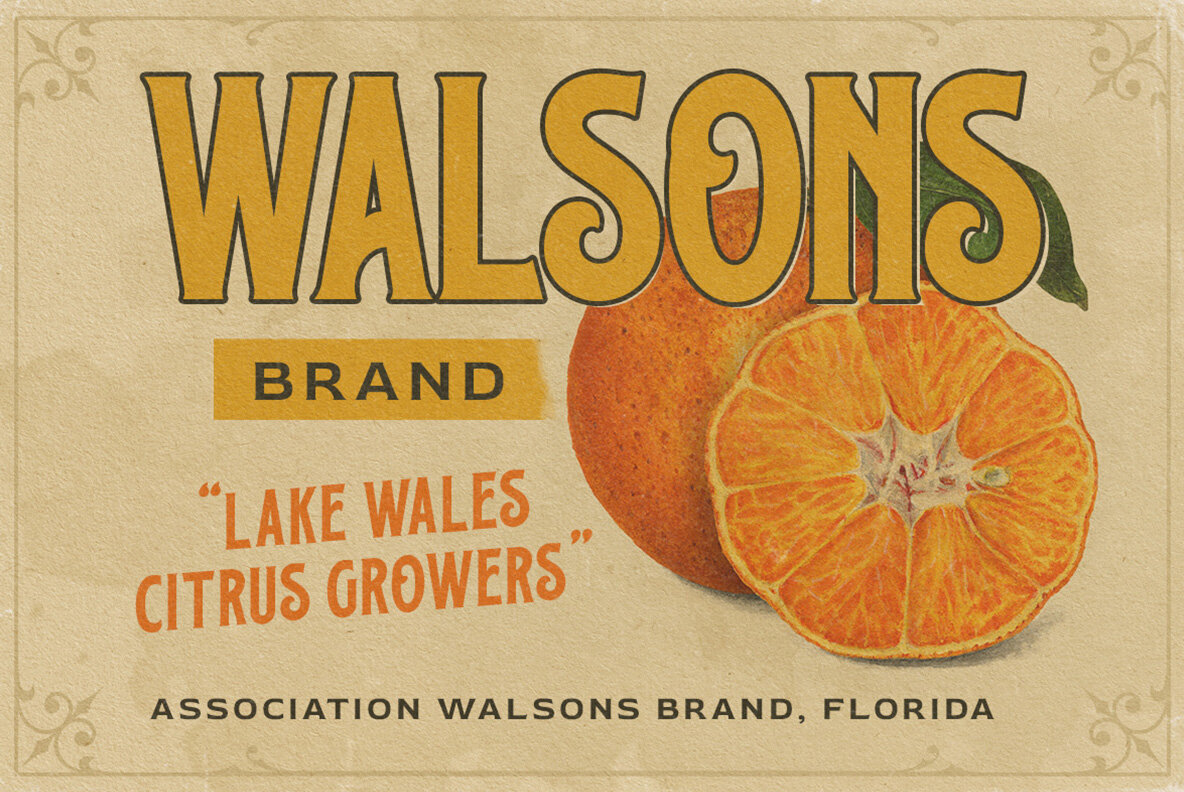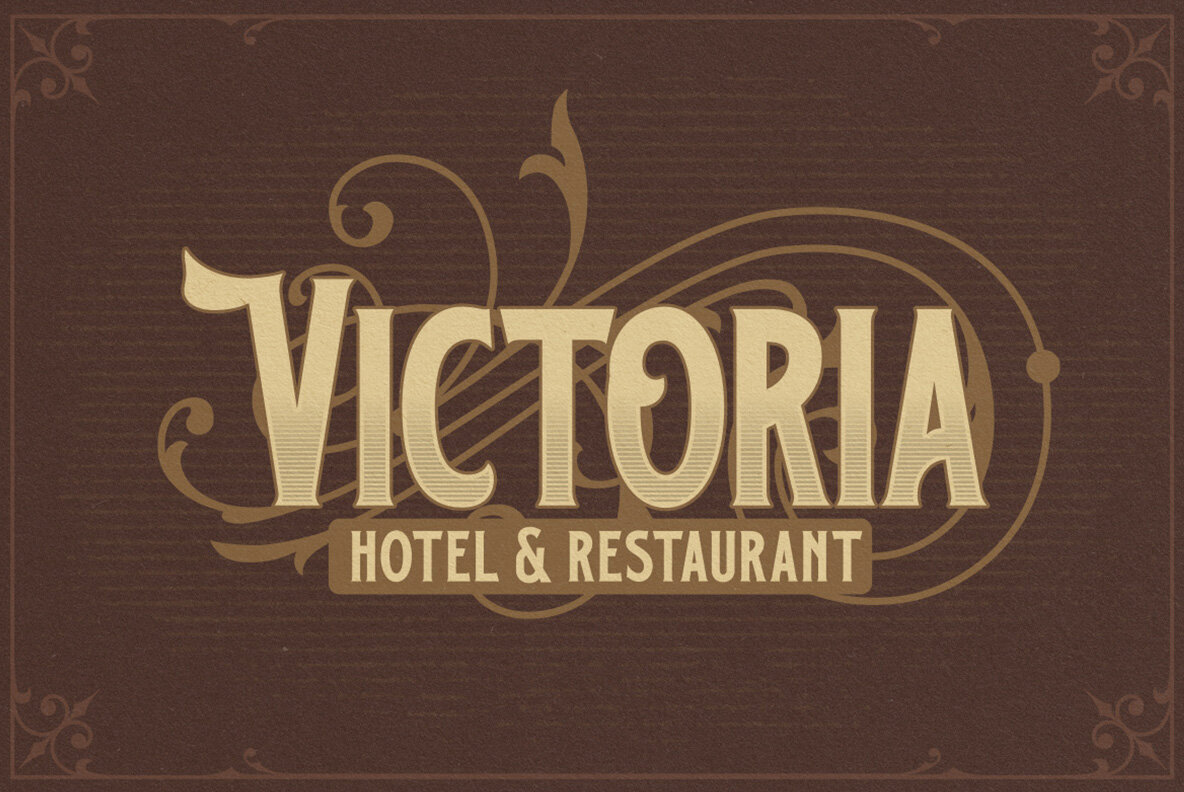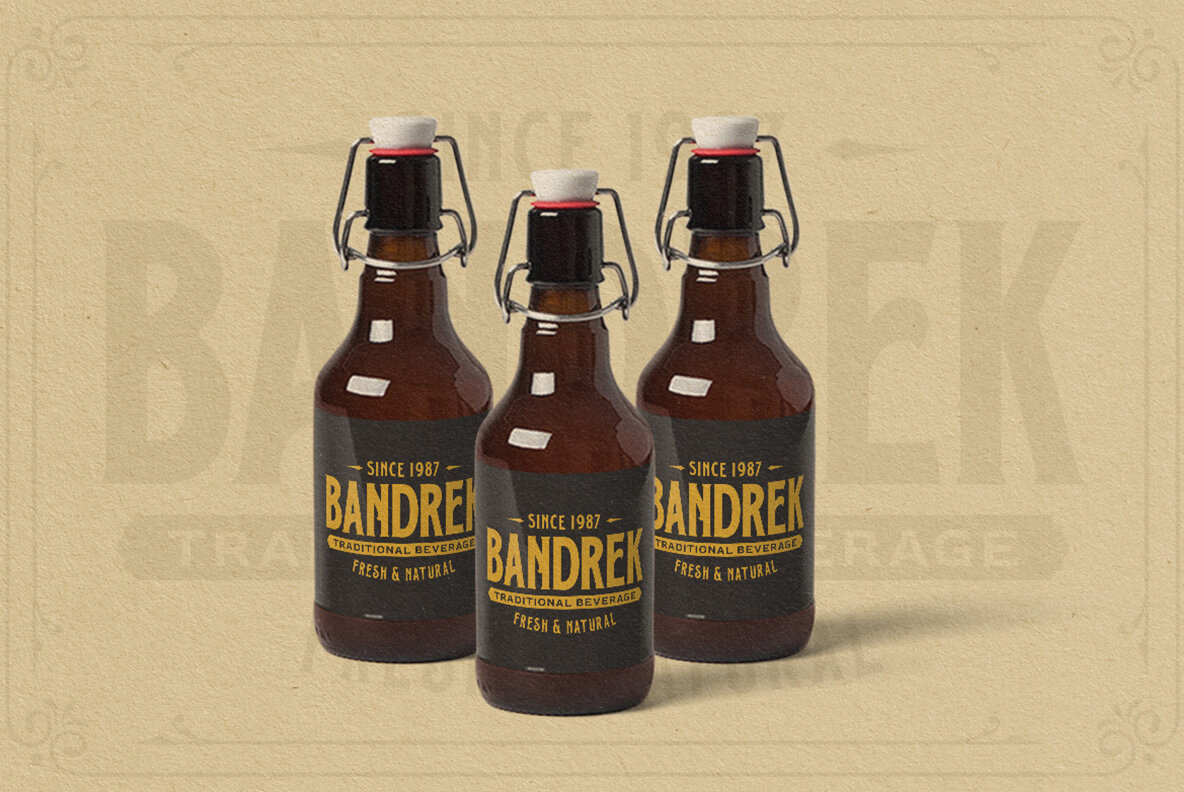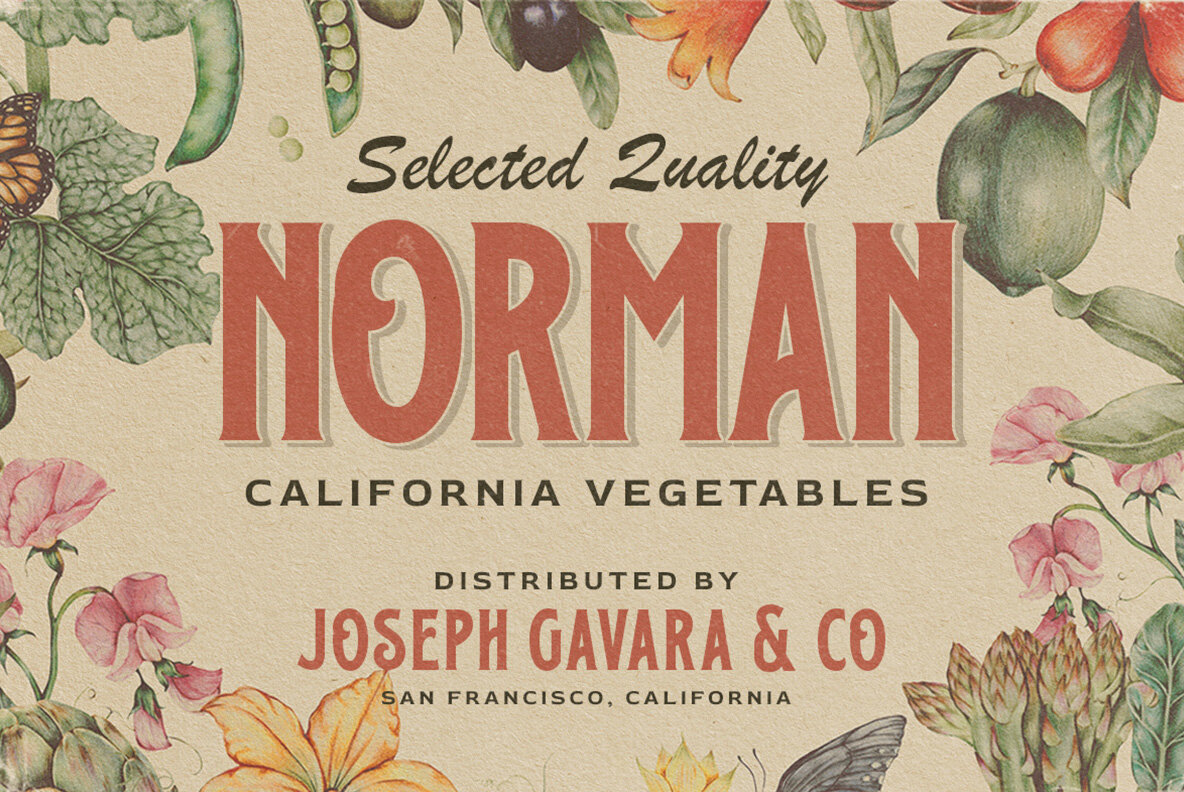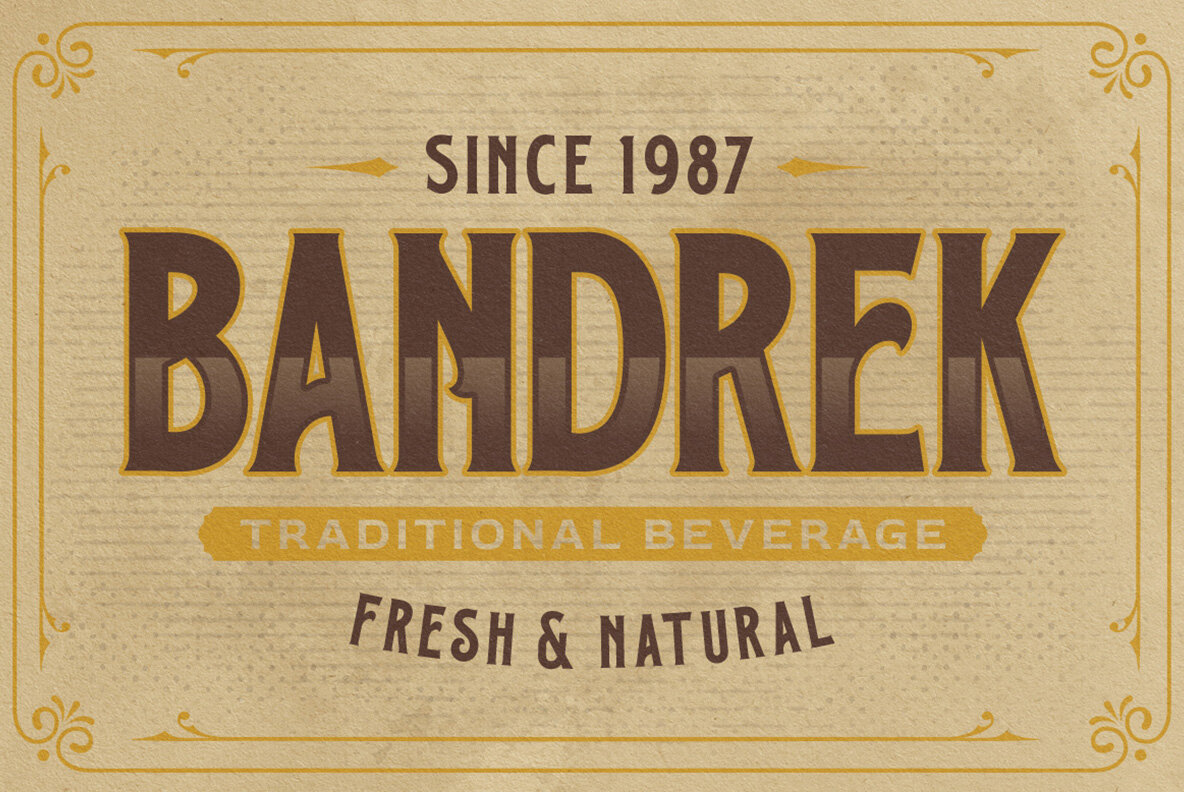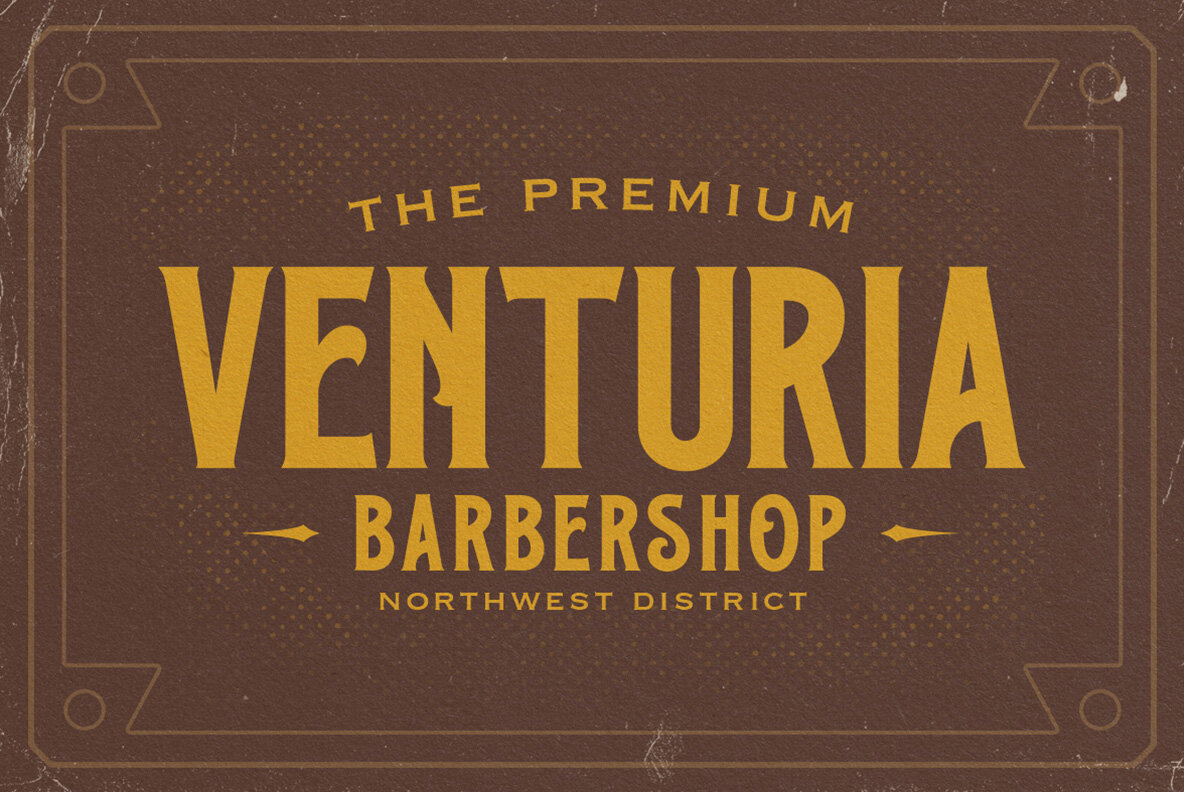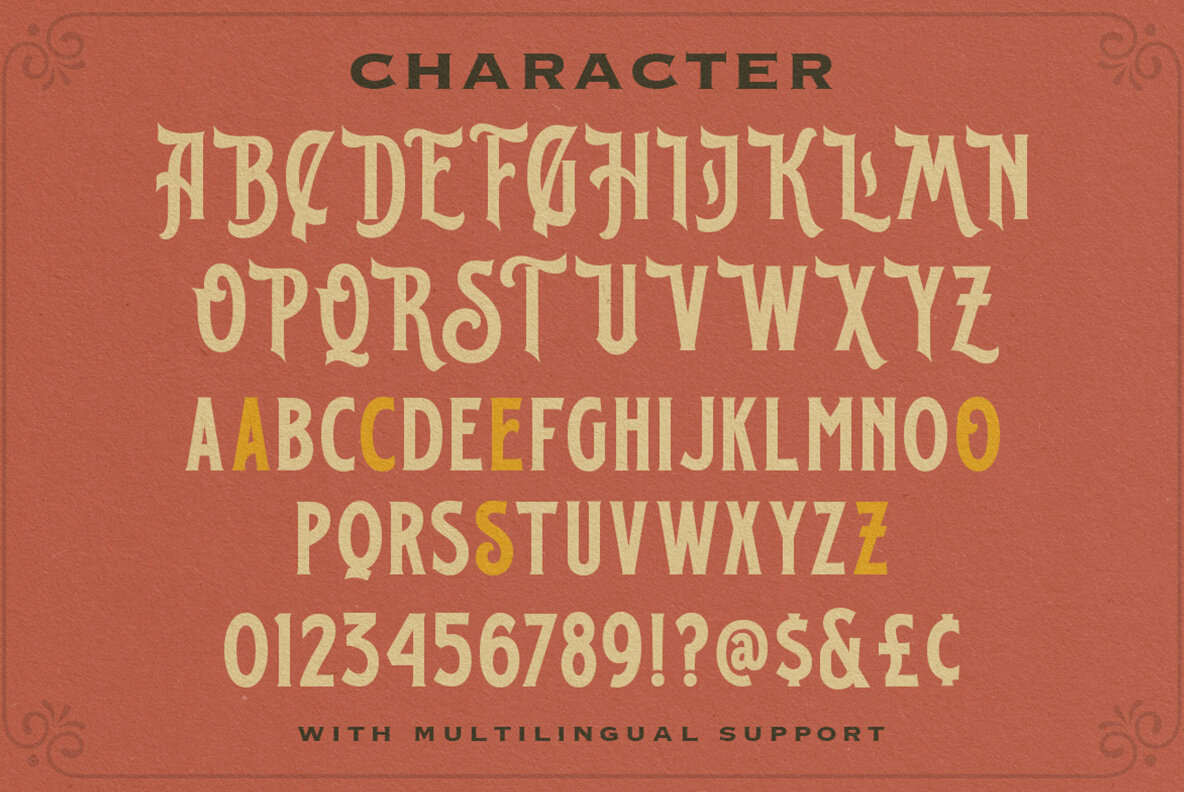
Brains Courage Font
Brains Courage Regular
With its graceful curves and sophisticated aura, Brains Courage is a Victorian serif that evokes the timeless elegance of the 60s and 70s signage. Ideal for those seeking a vintage yet classic aesthetic, this typeface is perfect for diverse formal applications. Whether featured in logos, invitations, labels, or on the pages of magazines and novels, Brains Courage offers a touch of nostalgic charm blended with modern sensibility. Optimize your design experience by utilizing applications supporting OpenType features and Glyphs panels, such as Adobe apps or Corel Draw. This will fully unlock the typographic potential of Brains Courage, ensuring all Glyph variations are at your fingertips.Brains Courage: Victorian Elegance Meets Vintage Charm